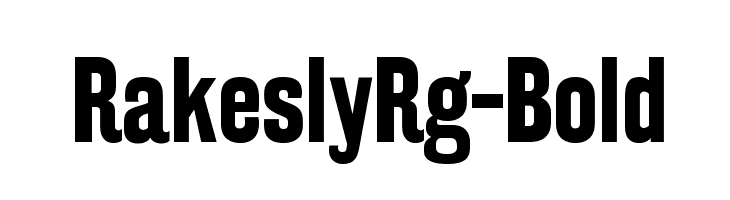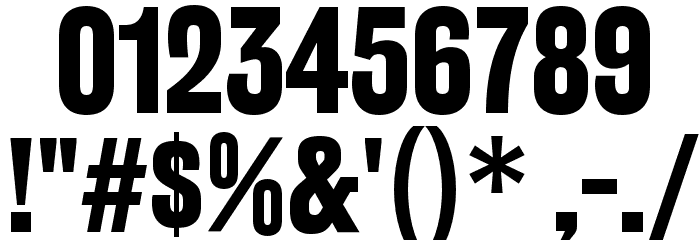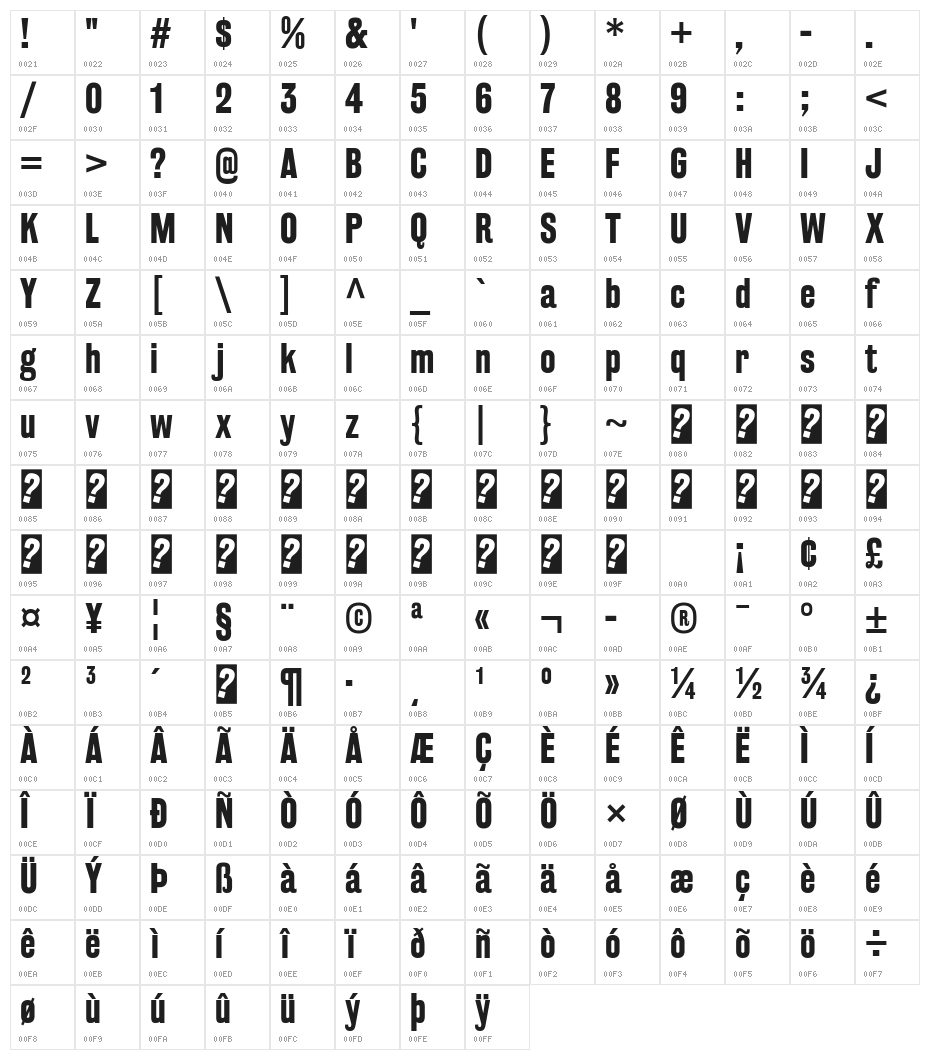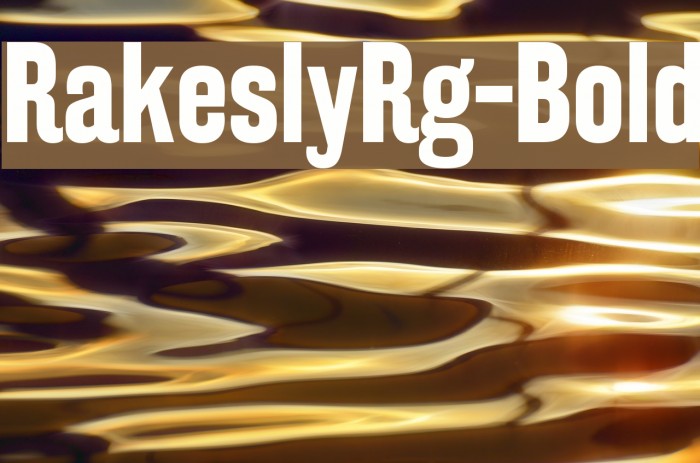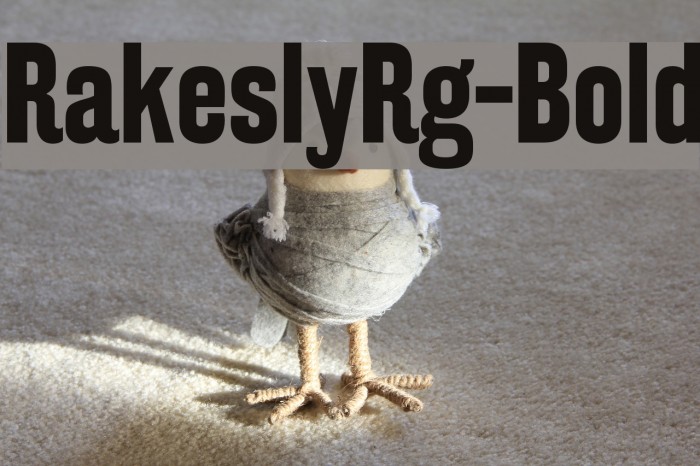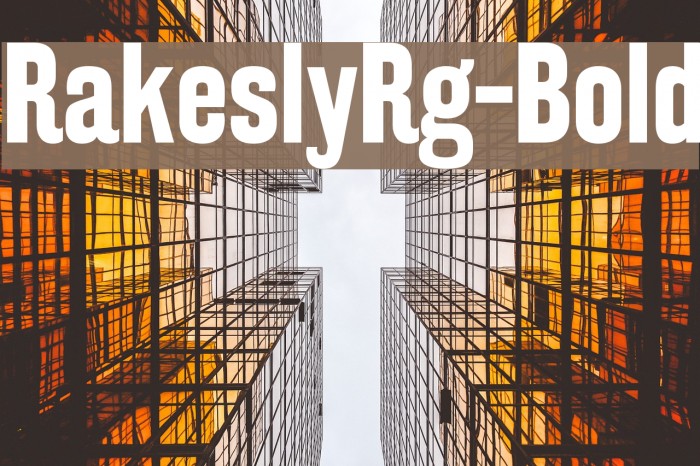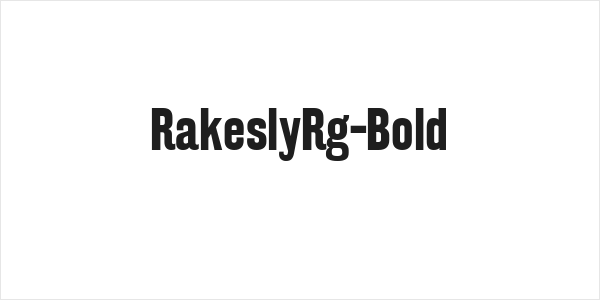
RakeslyRg-Bold Font
RakeslyRg-Bold Description
This font exhibits a bold and impactful presence, characterized by thick, uniform strokes that convey strength and confidence. The uppercase and lowercase letters maintain a consistent weight, ensuring readability and a cohesive look. The numbers and special characters are designed with the same boldness, making them stand out effectively. The overall design is clean and modern, with a slight geometric influence that adds to its contemporary appeal. This font is well-suited for projects that require a strong visual impact, such as headlines, posters, and branding materials.